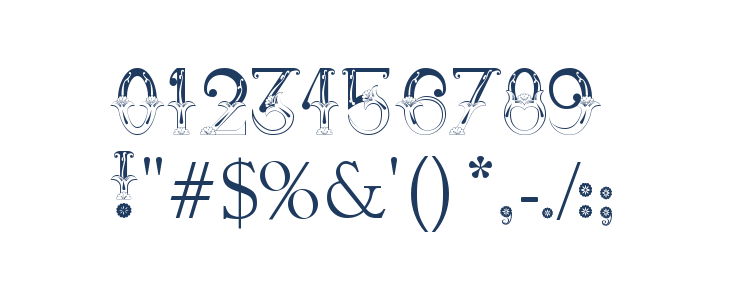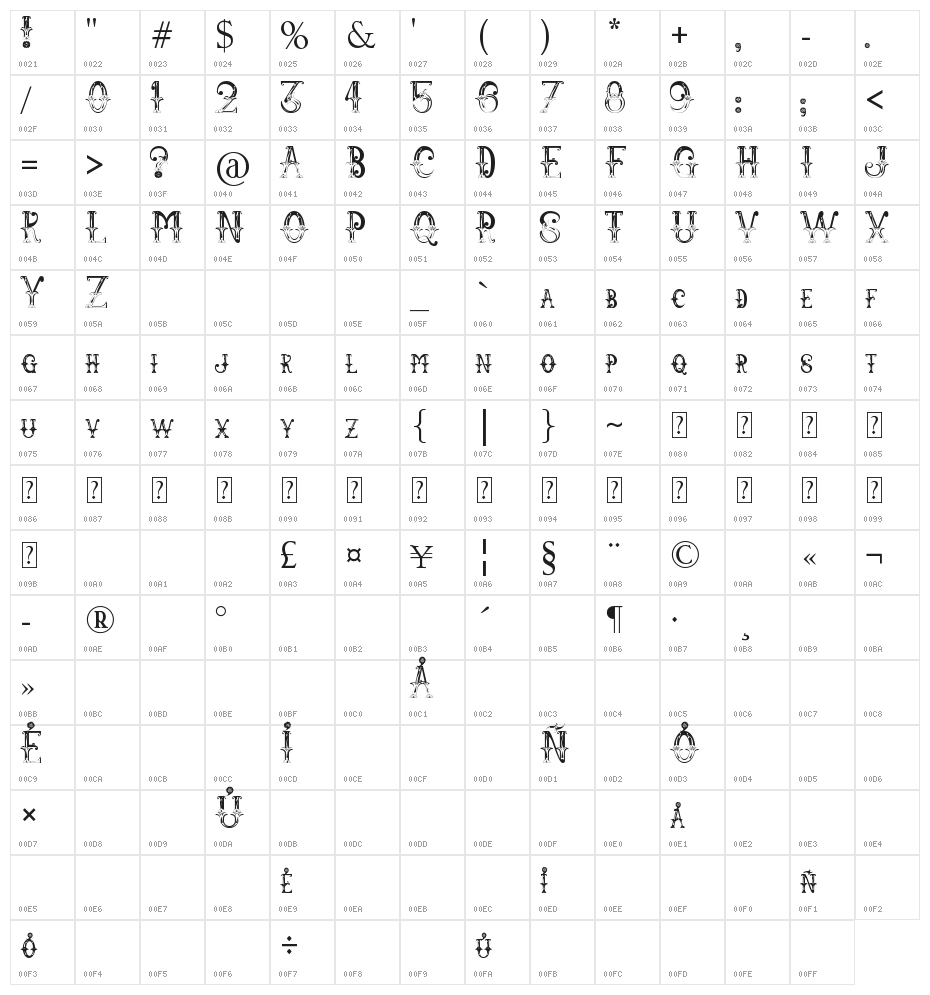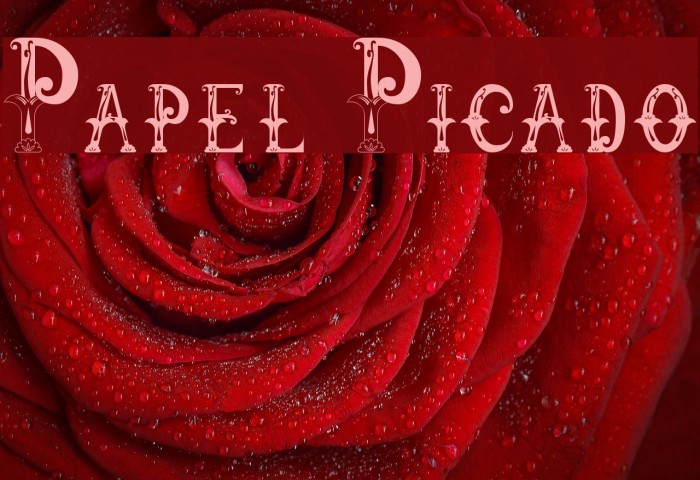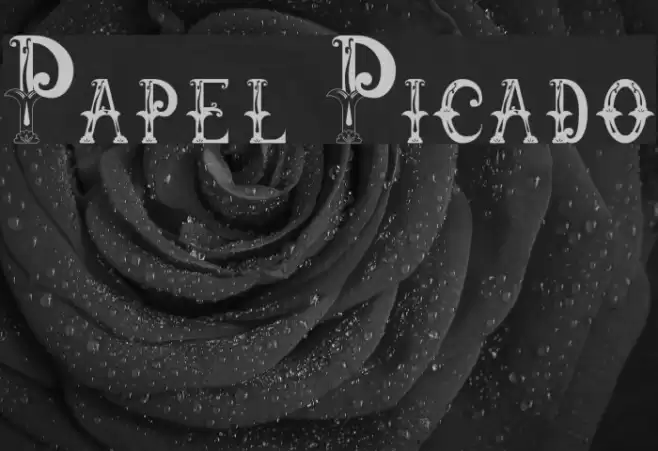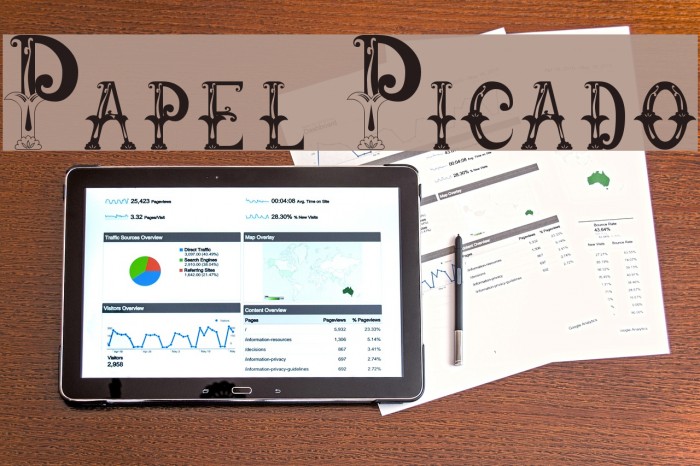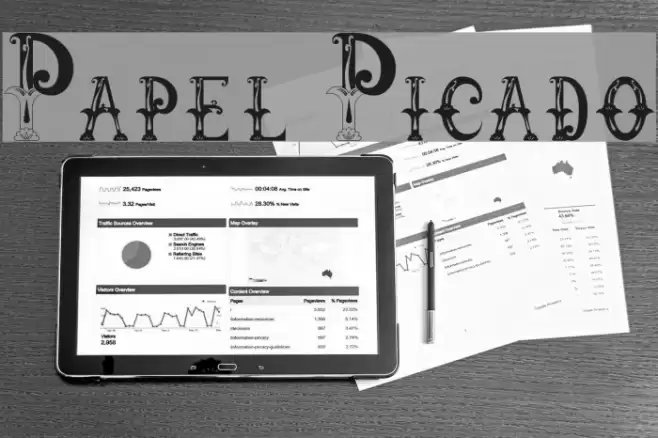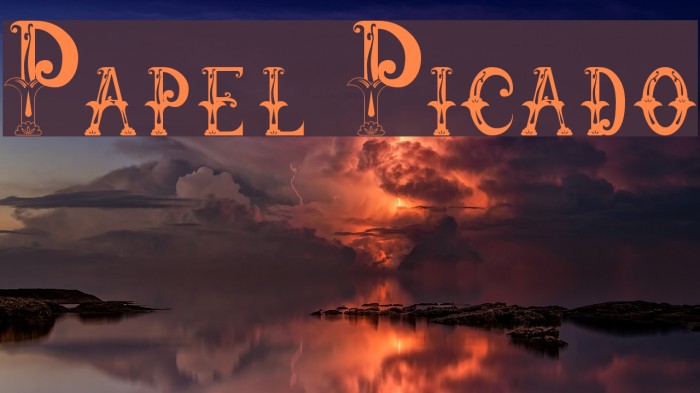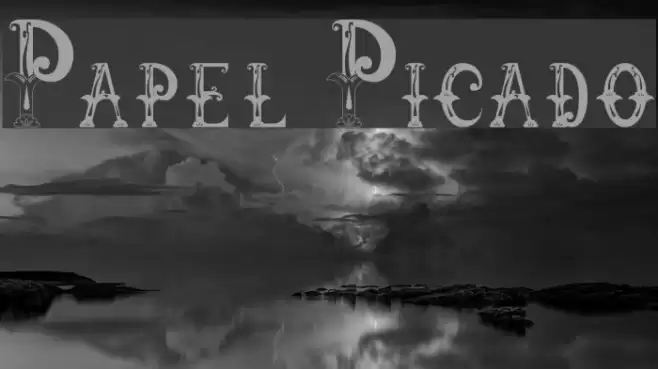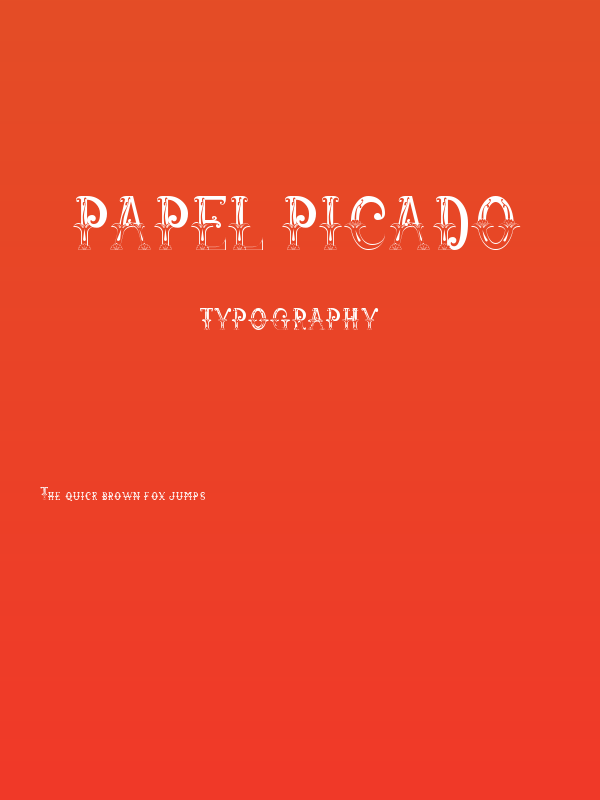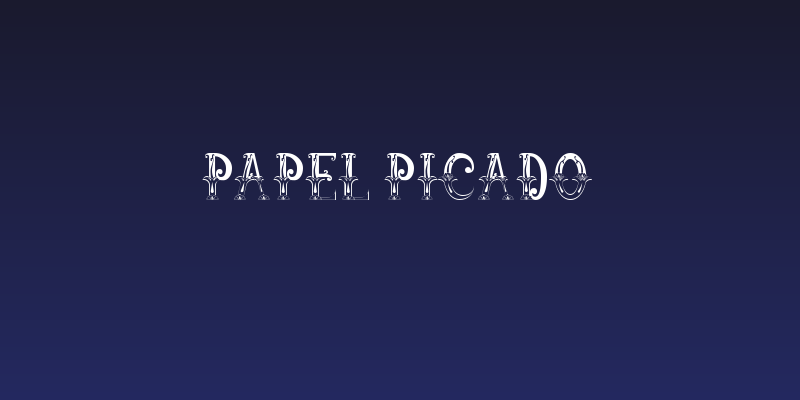
Papel Picado Font
Papel Picado Description
This font features an intricate and decorative style, reminiscent of traditional papel picado designs. Each character is adorned with ornate cut-out patterns, giving it a festive and celebratory appearance. The uppercase and lowercase letters maintain a consistent design theme, with embellishments that add a sense of elegance and flair. The numbers and special characters follow suit, ensuring a cohesive look across all glyphs. This font is perfect for projects that require a touch of cultural richness and artistic detail, making it ideal for invitations, posters, and festive event materials.
| Proposed Projects | Ideal for cultural event invitations, festive posters, artistic branding, and decorative signage. |